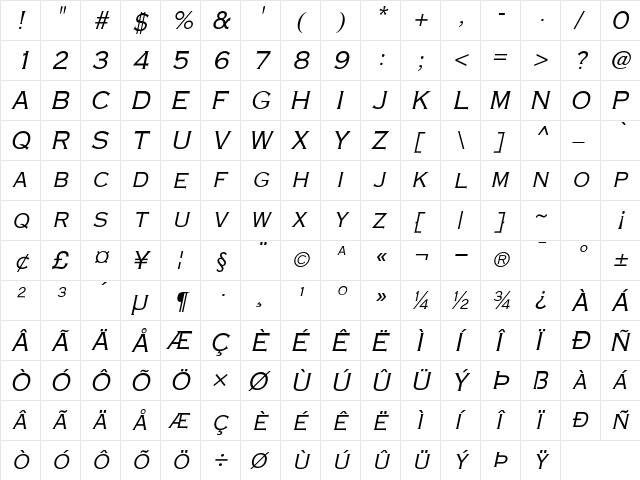
MetalcutLight Oblique Font Preview
Design Context for MetalcutLight Typeface
MetalcutLight takes a measured approach to typography — its balanced proportions and neutral character make it a reliable workhorse for both digital and print work. The dynamic lean of this cut emphasises speed and emphasis in any layout. The delicate stroke weight brings airiness and refinement to layouts.
Pro Tip: Try MetalcutLight for annotation and caption copy alongside an upright companion — the contrast in angle creates a dynamic but ordered typographic system.